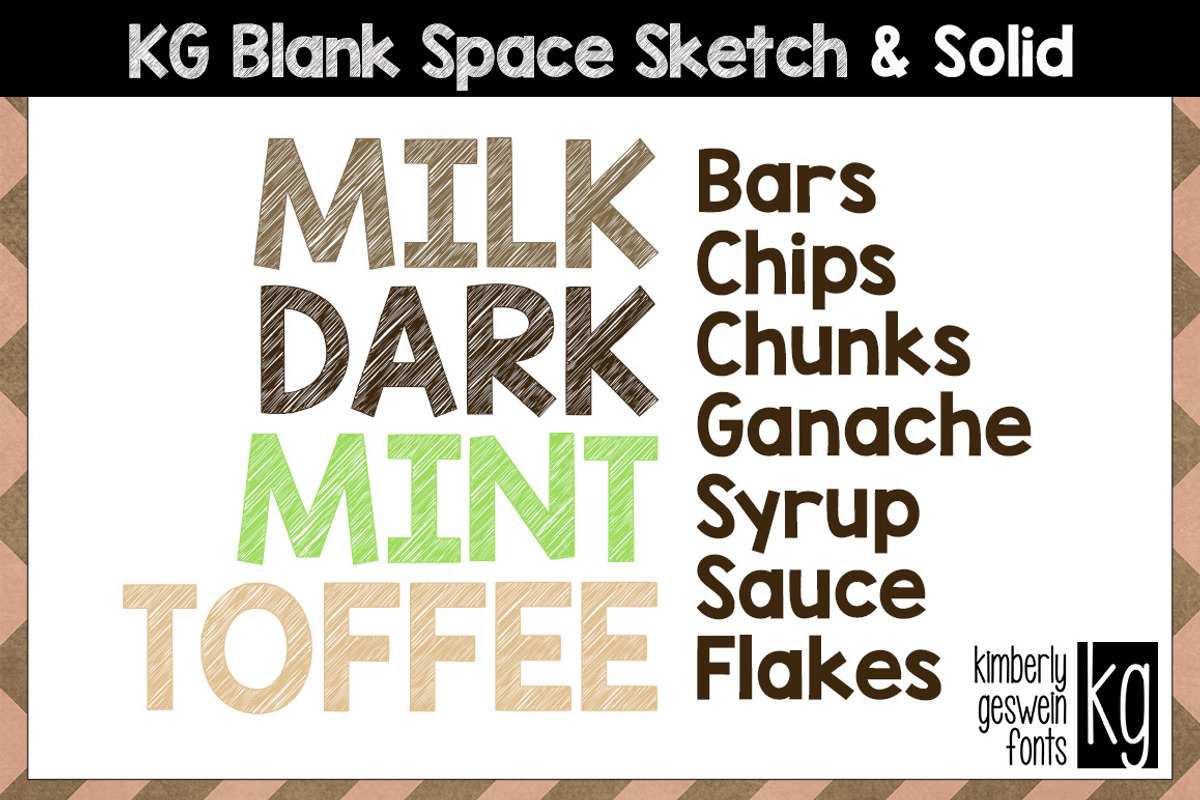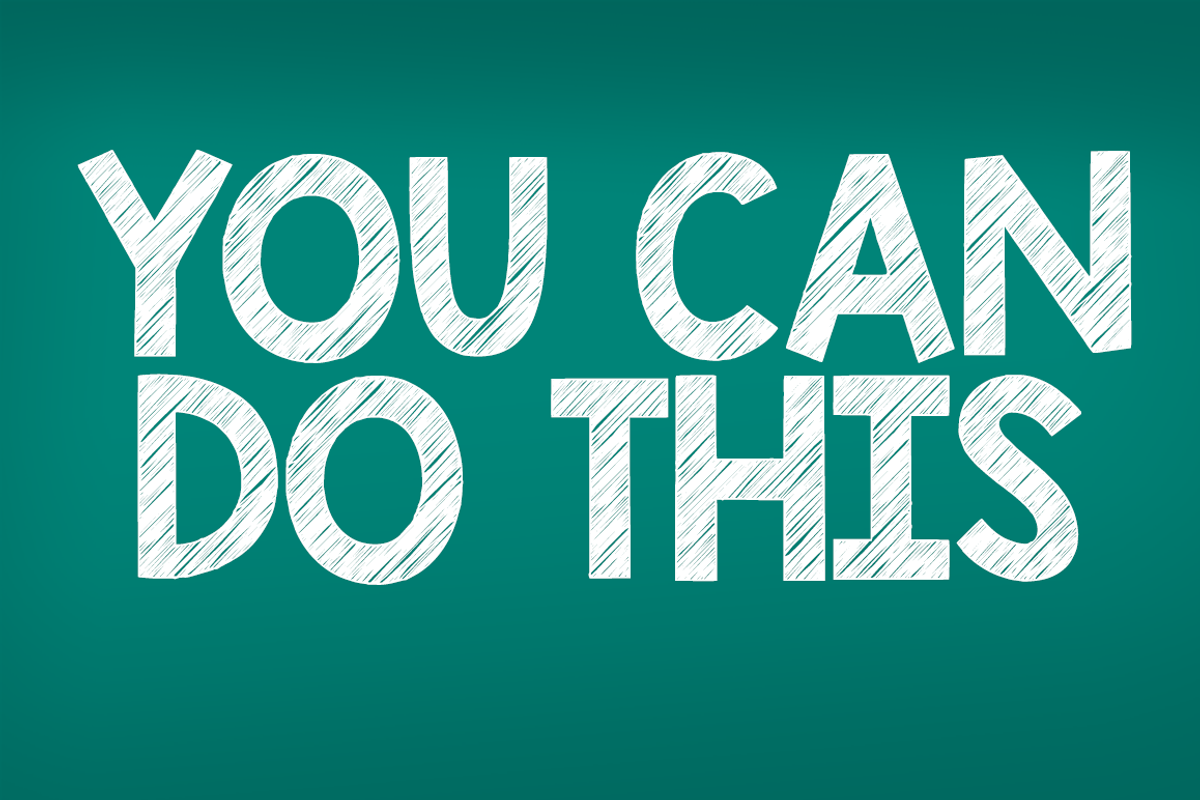
KG Blank Space Font
KG Blank Space Font by Kimberly Geswein Fonts is a font selected for branding, posters, packaging, typography.
- KG Blank Space Sketch Regular
- KG Blank Space Solid Regular
Why KG Blank Space Font is worth a look
KG Blank Space Font by Kimberly Geswein Fonts fits naturally into Branding, posters, packaging, typography.